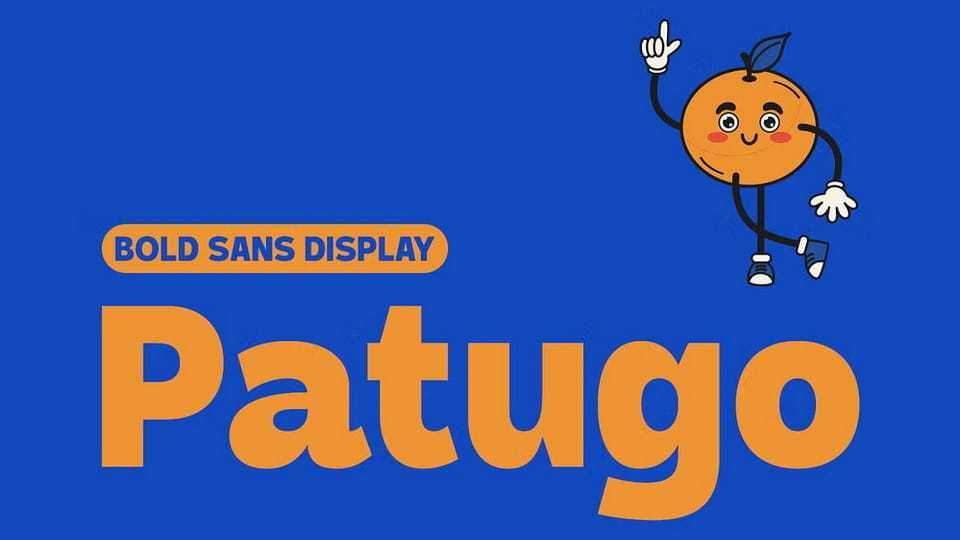
Download Patugo font, a bold sans display typeface designed to bring energy, fun, and strong visual impact into your creative projects. With its chunky letterforms and smooth curves, Patugo delivers a playful yet confident personality